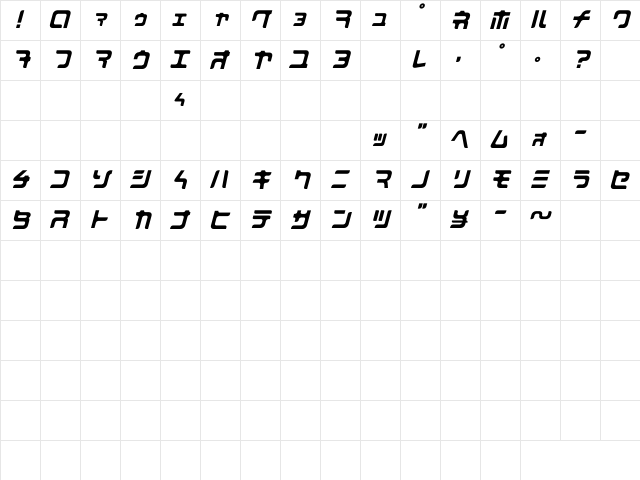
MarkingMarker is a composed and adaptable typeface that performs quietly and consistently across a wide range of design contexts. The slanted form adds forward momentum and visual energy.